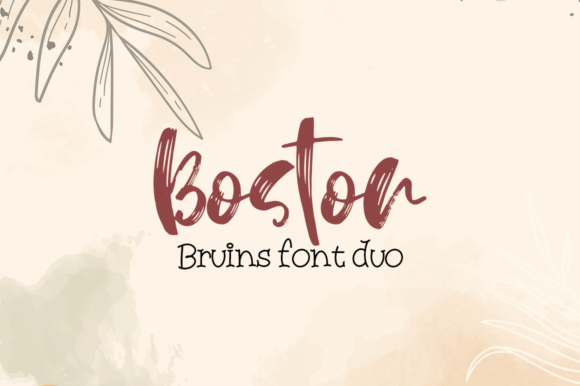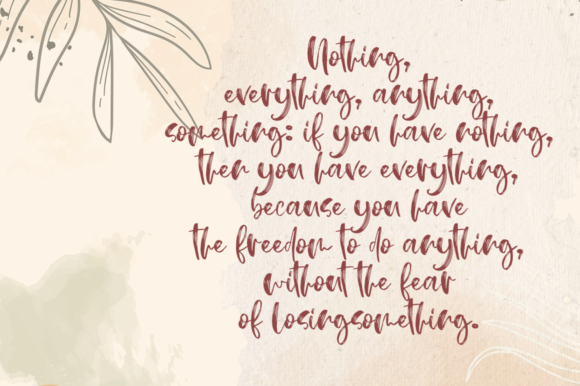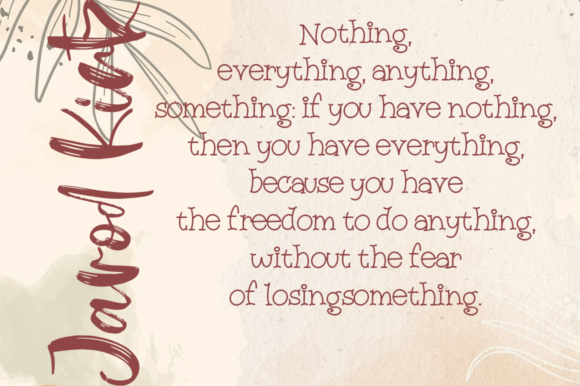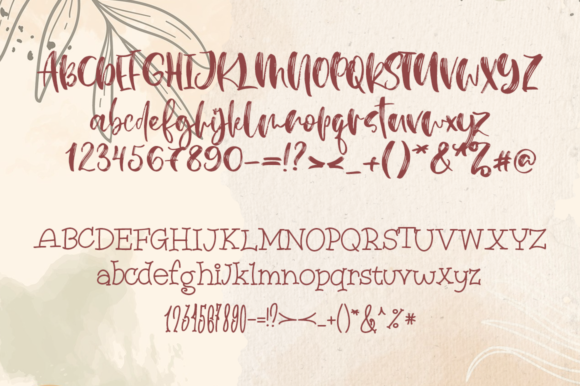
About Boston Bruins Font
Boston Bruins is an incredibly unique and interesting duo font (brushed handwritten and serif). Fun and a bit quirky, this font could easily fit a variety of design ideas.